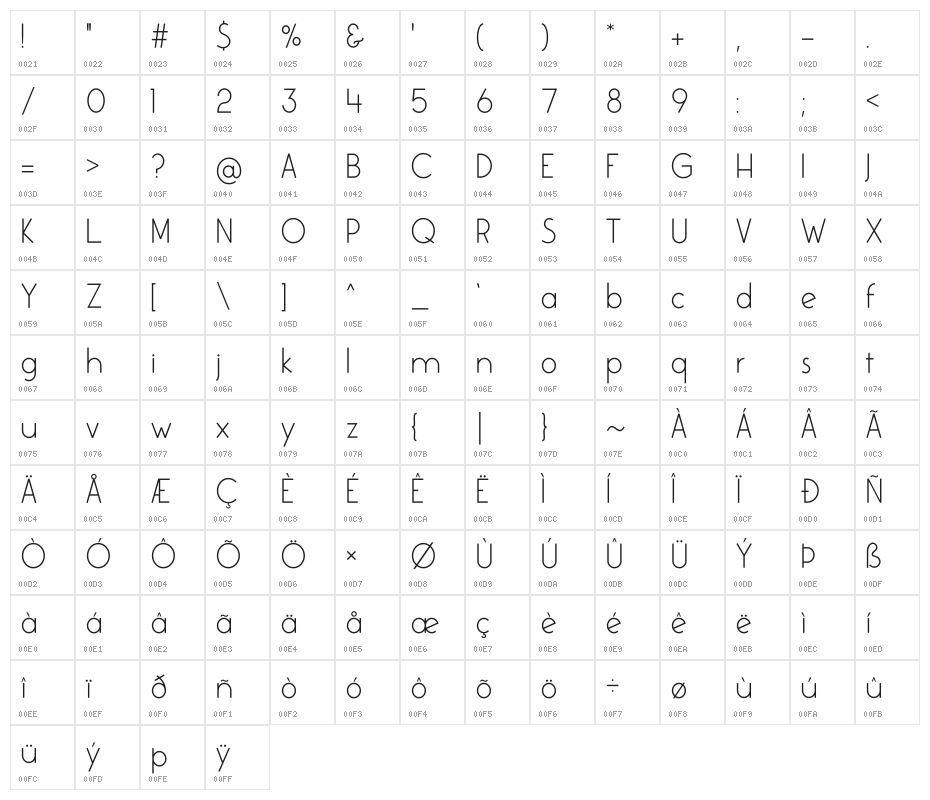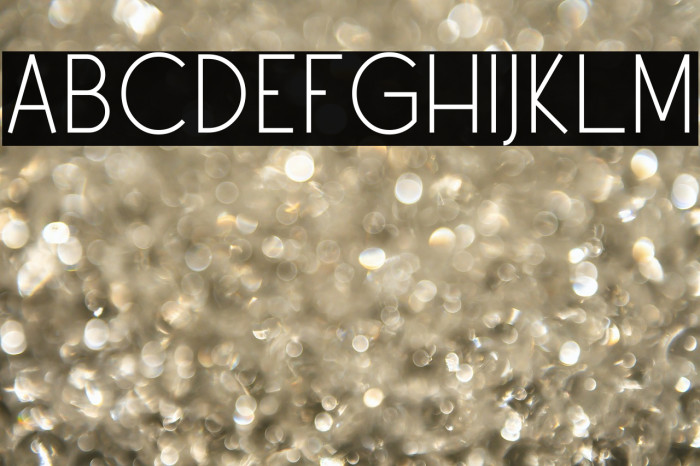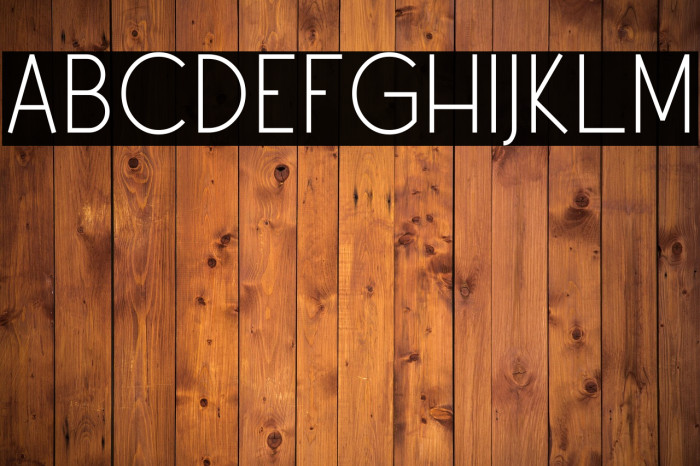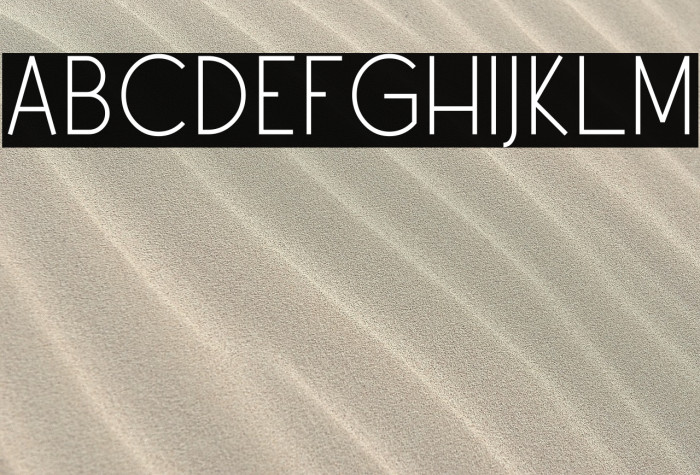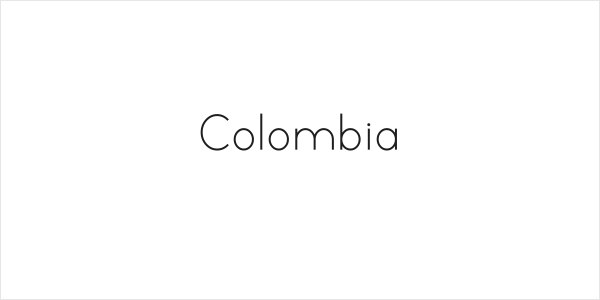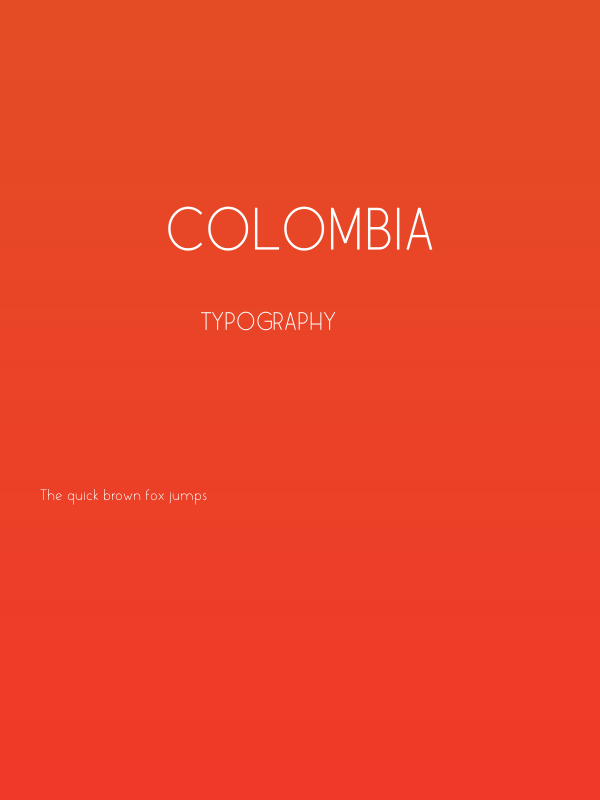
Colombia Font
Colombia Description
This font features a clean and modern sans-serif design with a geometric structure. The characters are evenly proportioned, with a consistent stroke width that gives it a sleek and minimalist appearance. The uppercase letters are tall and commanding, while the lowercase letters maintain a balanced and harmonious look. The numerals are clear and legible, making them suitable for various applications. Special characters are included, maintaining the same geometric style, which adds to the font's versatility. Overall, this font exudes a sense of simplicity and elegance, making it ideal for contemporary design projects.